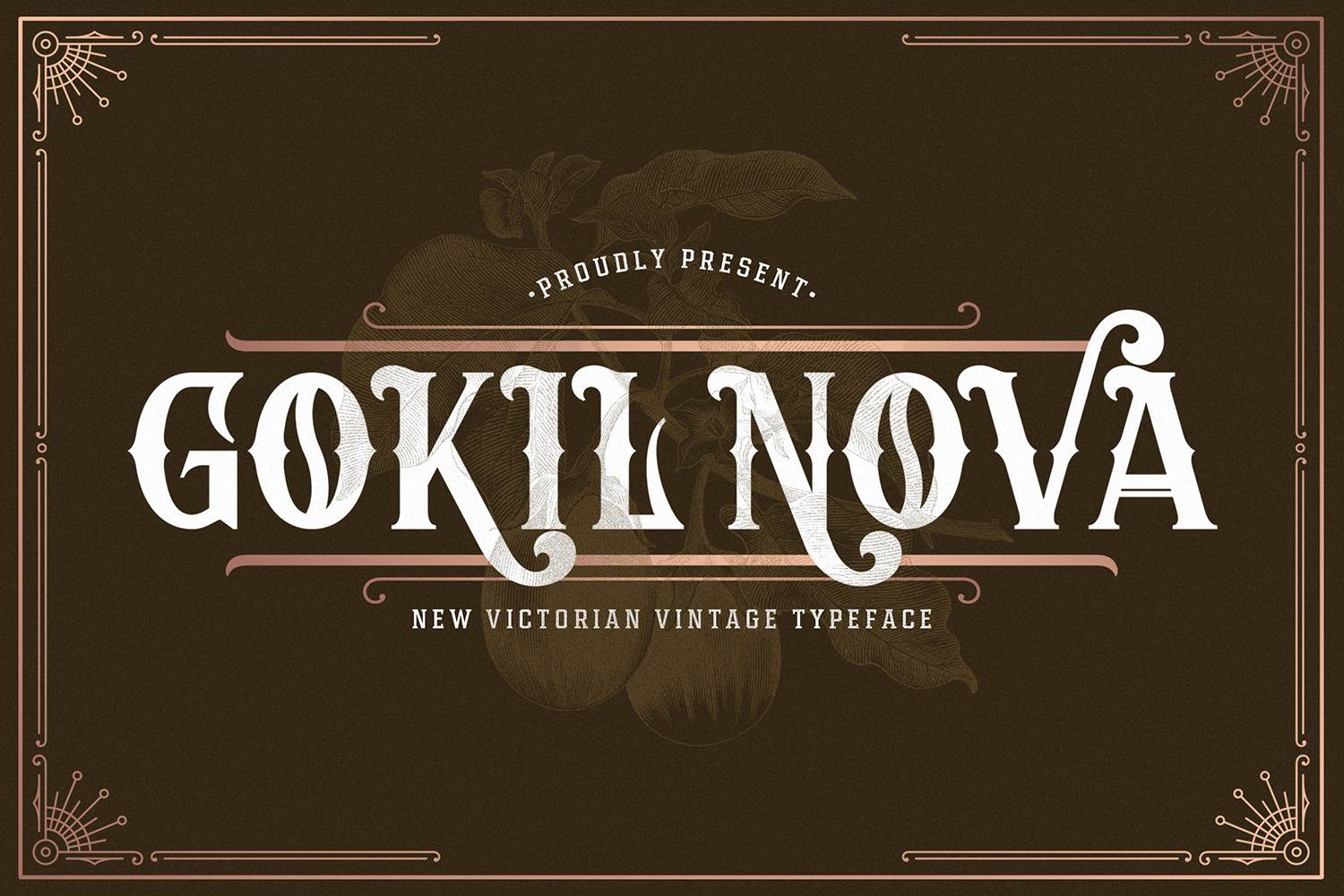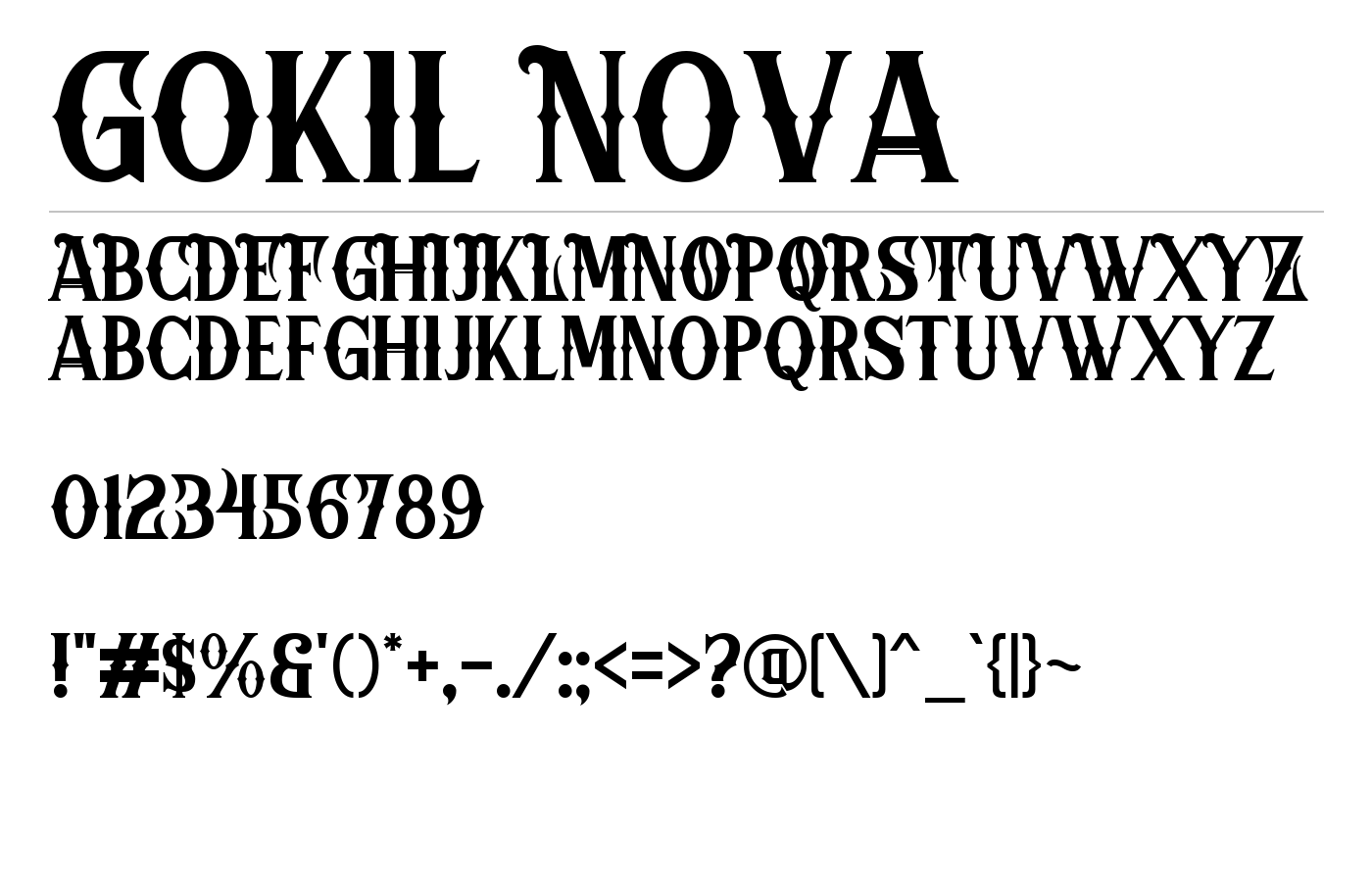
Gokil Nova is a bold serif font with a tall, condensed form and a striking contrast between thick and thin strokes, featuring sharp, bracketed serifs that give it a strong, vintage-inspired appearance. Its uppercase-only style and unique letter shapes bring a dramatic, decorative flair that works beautifully for eye-catching headlines, logos, and display purposes, especially where a bold, classic, and slightly theatrical vibe is desired. This font adds personality and impact, making it ideal for branding and creative projects that need a confident and distinctive look.
Gokil Nova Font
About Gokil Nova Font